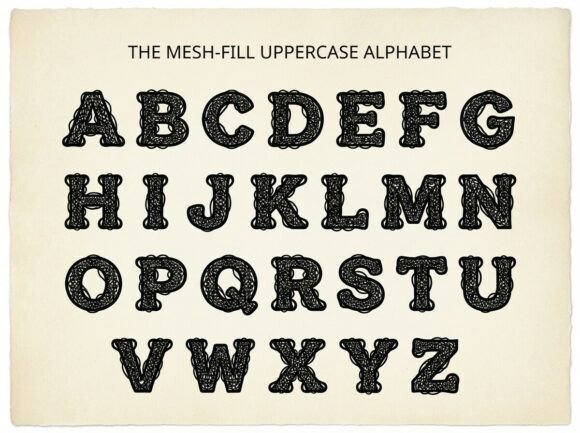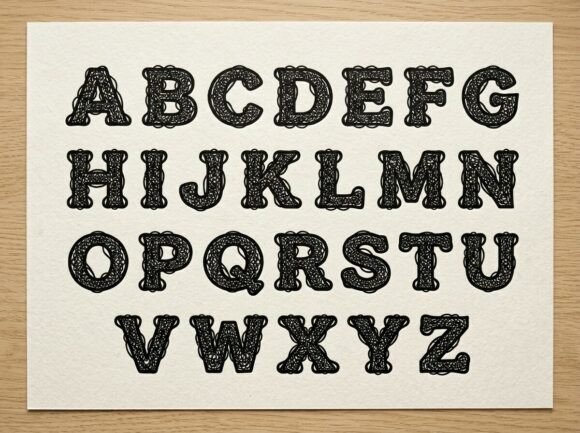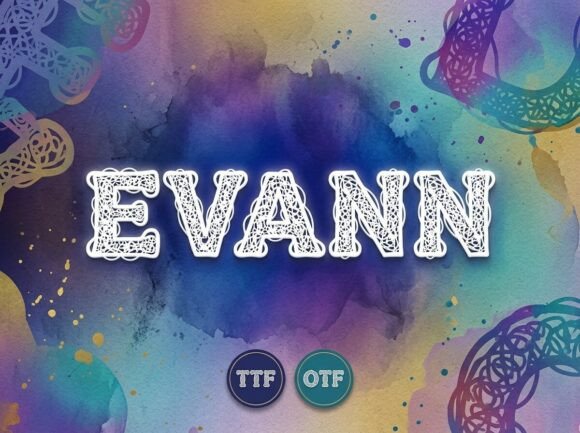
Introducing Evann Font: A Stunning Decorative Display Font
Are you tired of using the same old fonts for your designs? Look no further than Evann Font, a unique and artistic display font that’s sure to turn heads. With its strong visual personality and decorative elements, this font is perfect for creators who want to add a touch of elegance and sophistication to their work.
What Makes Evann Font Special?
Evann Font is a decorative display font designed to be the center of attention. Its unique artistic elements and strong visual personality make it perfect for bold headlines, artistic logos, and creative packaging. Whether you’re a designer, craftsperson, or DIY enthusiast, this font is sure to elevate your work to the next level.
Key Features of Evann Font
- Unique Artistic Elements: Evann Font features intricate and decorative elements that add a touch of elegance to any design.
- Strong Visual Personality: This font has a bold and eye-catching appearance that’s sure to grab attention.
- Versatile: Evann Font is perfect for a variety of design applications, including bold headlines, artistic logos, and creative packaging.
- Professional and Polished Finish: Despite its decorative nature, Evann Font maintains a professional and polished finish that’s suitable for even the most high-end designs.
Before purchasing Evann Font, please note that it is an ALL-CAPS (Uppercase Only) display typeface. This means that it does not include lowercase letters. It is specifically designed for high-impact headlines, logos, and decorative initials where every letter is a work of art.
This unique design feature allows for a level of detail and intricacy that’s not possible with traditional fonts. However, it’s essential to ensure that you’re aware of this limitation before making a purchase.
Evann Font is perfect for designers and crafters who want to add a touch of elegance and sophistication to their work. Whether you’re creating:
- Logos: Use Evann Font to create stunning logos that showcase your brand’s personality.
- Headlines: Add a touch of drama and flair to your headlines with Evann Font’s bold and eye-catching appearance.
- Packaging: Use Evann Font to create eye-catching packaging that stands out on store shelves.
- Artistic Projects: Evann Font is perfect for artistic projects, such as handmade cards, invitations, and more.